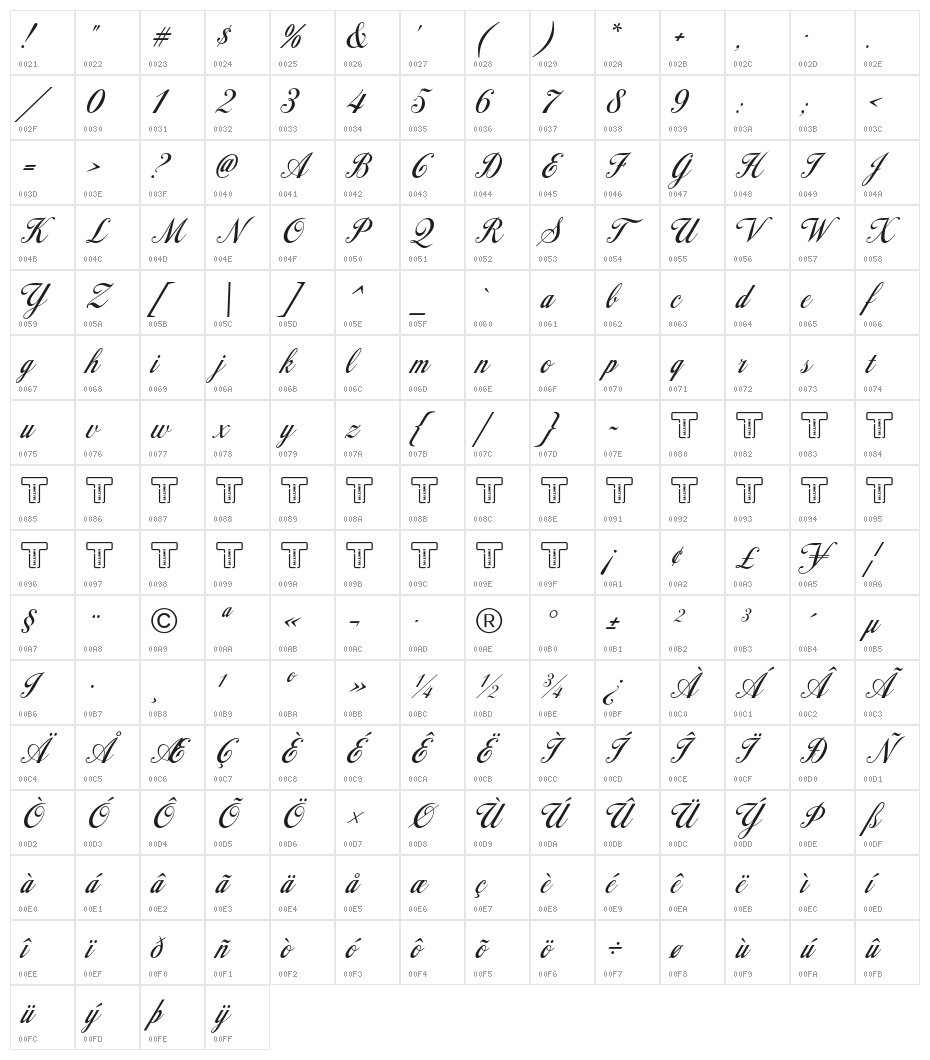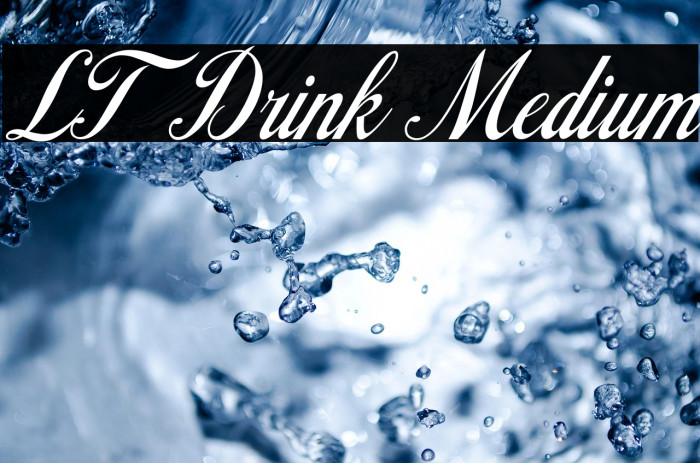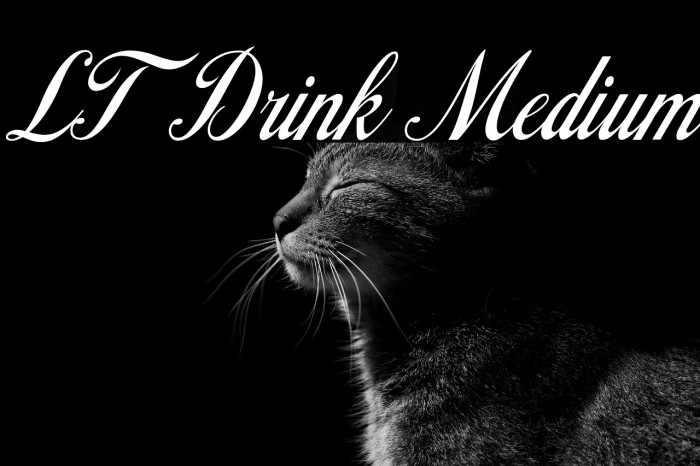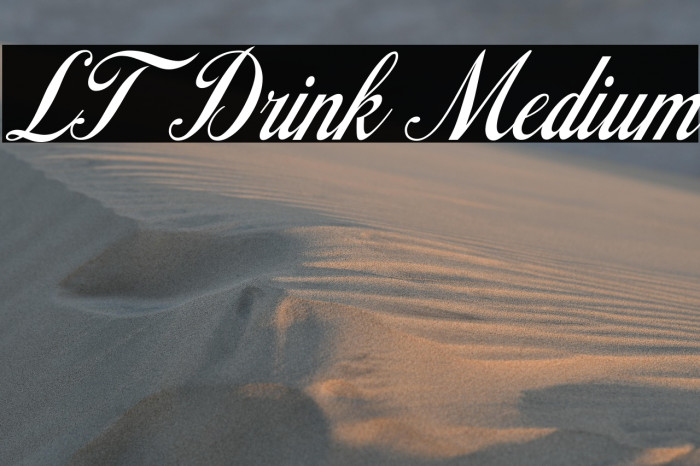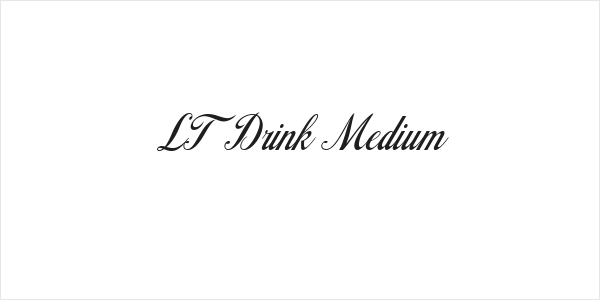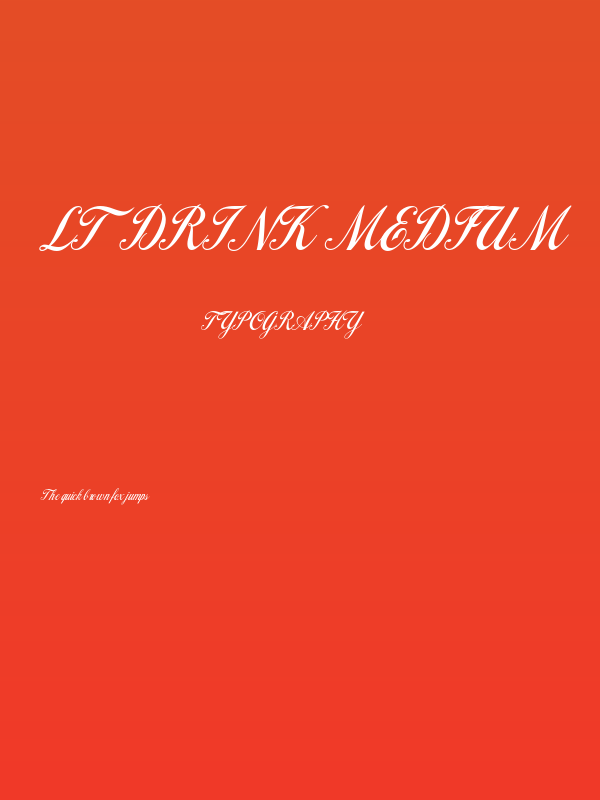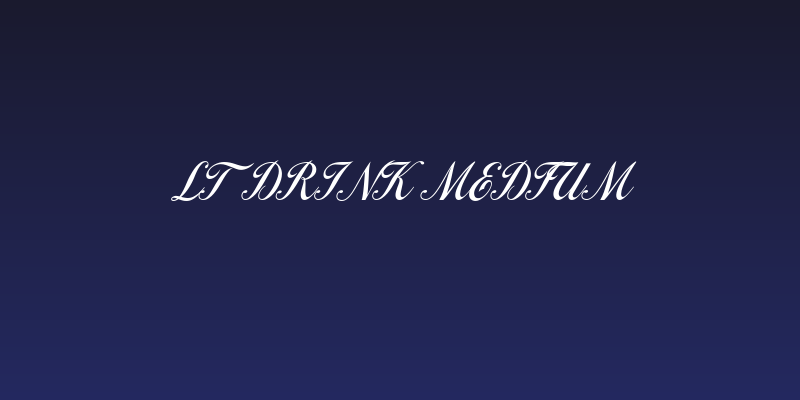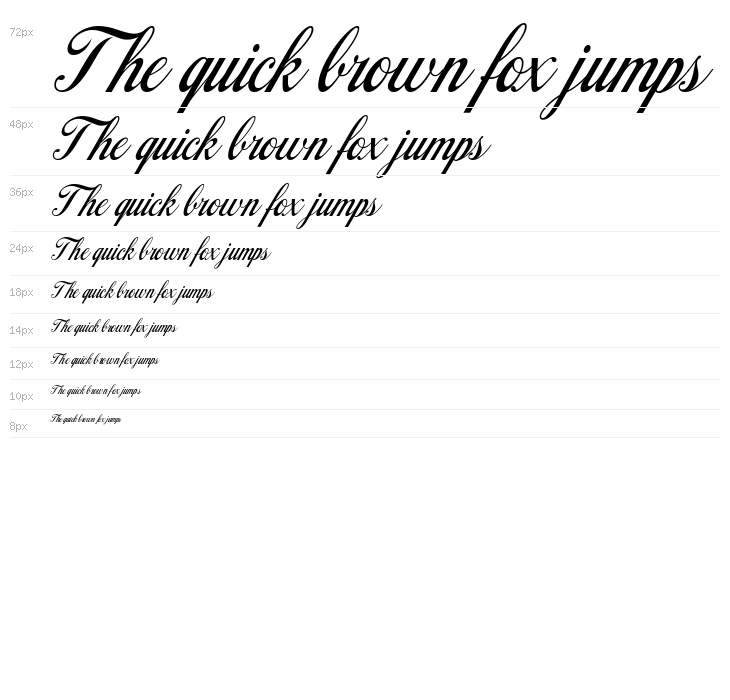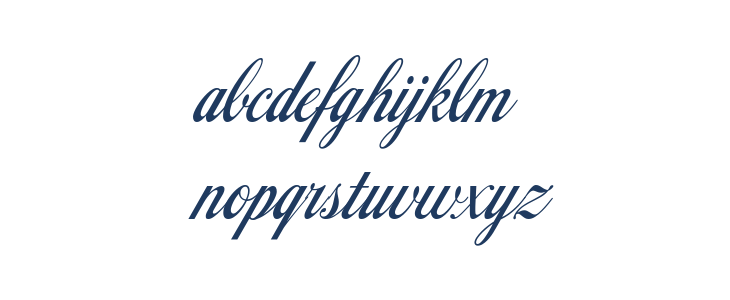
LT Drink Medium Font
LT Drink Medium Description
This elegant script font features a flowing, cursive style with high contrast between thick and thin strokes. The uppercase letters are ornate and sophisticated, with sweeping curves and flourishes that give a sense of movement and grace. The lowercase letters maintain a consistent style, with smooth connections and a slightly slanted orientation that enhances readability. Numbers and special characters are designed to match the overall aesthetic, providing a cohesive look. This font is ideal for projects that require a touch of elegance and sophistication.